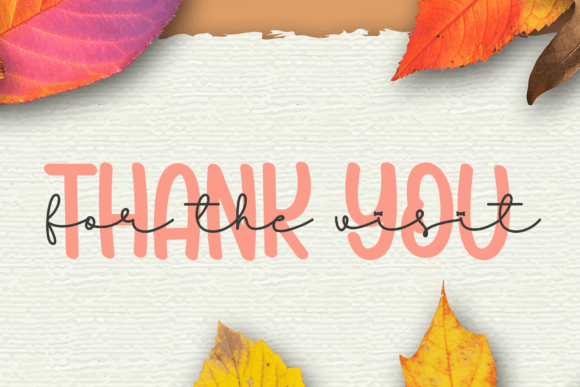
Baby Mermaid Font
Baby Mermaid is a stylish and delicate handwritten and sans serif duo font suitable for a wide spectrum of applications. From greeting cards to headlines, this font will guarantee a romantic touch to each of your creations!